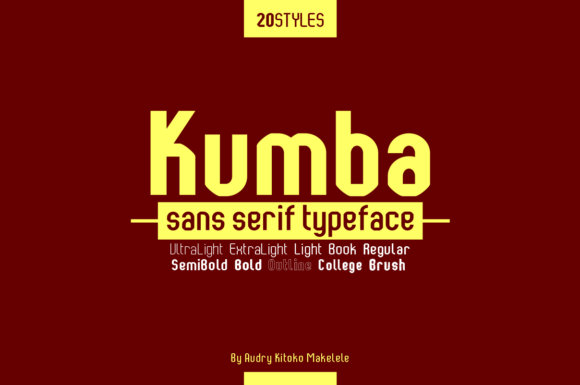
Embark on a Typographic Odyssey with Kumba Font: A Symphony of Style and Functionality
In the realm of digital design, fonts hold the power to transform ordinary words into captivating expressions, leaving an indelible mark on the minds of your audience. Meet Kumba Font, a sans serif masterpiece meticulously crafted by the visionary designer audrykitoko, a name synonymous with typographic excellence.
Kumba Font: A Timeless Classic with a Modern Edge
Kumba Font draws inspiration from the enduring legacy of classic typography, paying homage to the enduring beauty of timeless letterforms. Yet, it breaks free from the confines of tradition, injecting a breath of fresh air into your design endeavors. With its clean lines, generous proportions, and unwavering attention to detail, Kumba Font is a true testament to the art of digital craftsmanship.
A Versatile Performer: From Headlines to Text Blocks
Kumba Font is a versatile performer, effortlessly adapting to a wide range of design challenges. Its inherent strength and clarity make it the perfect choice for commanding headlines, demanding attention and leaving a lasting impression. Yet, it also excels in the nuanced realm of text blocks, providing optimal readability and visual harmony, ensuring your message is conveyed with crystal clarity.
The Kumba Advantage: A Multitude of Applications
Kumba Font's versatility extends far beyond the digital realm. Whether you're crafting compelling web designs, leaving a lasting impression through print media, or bringing your creations to life in the captivating world of moving images, Kumba Font will elevate your work to new heights. Its adaptability and unwavering quality make it an indispensable tool for designers of all stripes.
A Symphony of Aesthetics and Functionality
Kumba Font is more than just a collection of letters; it's a symphony of aesthetics and functionality. Its carefully balanced proportions, meticulously crafted curves, and razor-sharp edges create a visual masterpiece that captivates the eye. Every letterform in the Kumba Font family has been meticulously designed to harmonize seamlessly, ensuring your designs exude an aura of sophistication and professionalism.
A Font for the Ages: Timeless and Enduring
Kumba Font transcends the boundaries of time, a testament to the enduring power of good design. Its classic roots and contemporary sensibilities ensure that it will remain a timeless choice for years to come. Invest in Kumba Font today and enjoy the peace of mind that comes with knowing your designs will always be on trend, attracting attention and admiration wherever they appear.